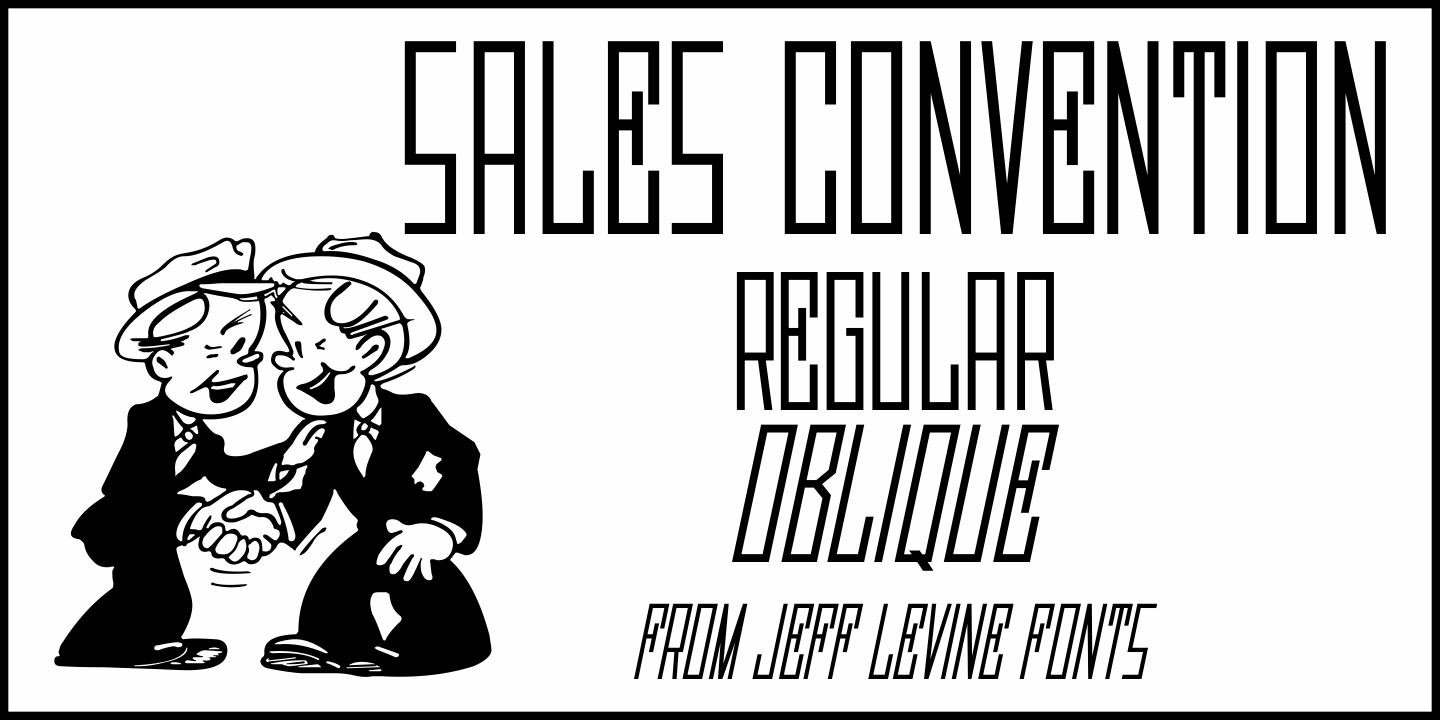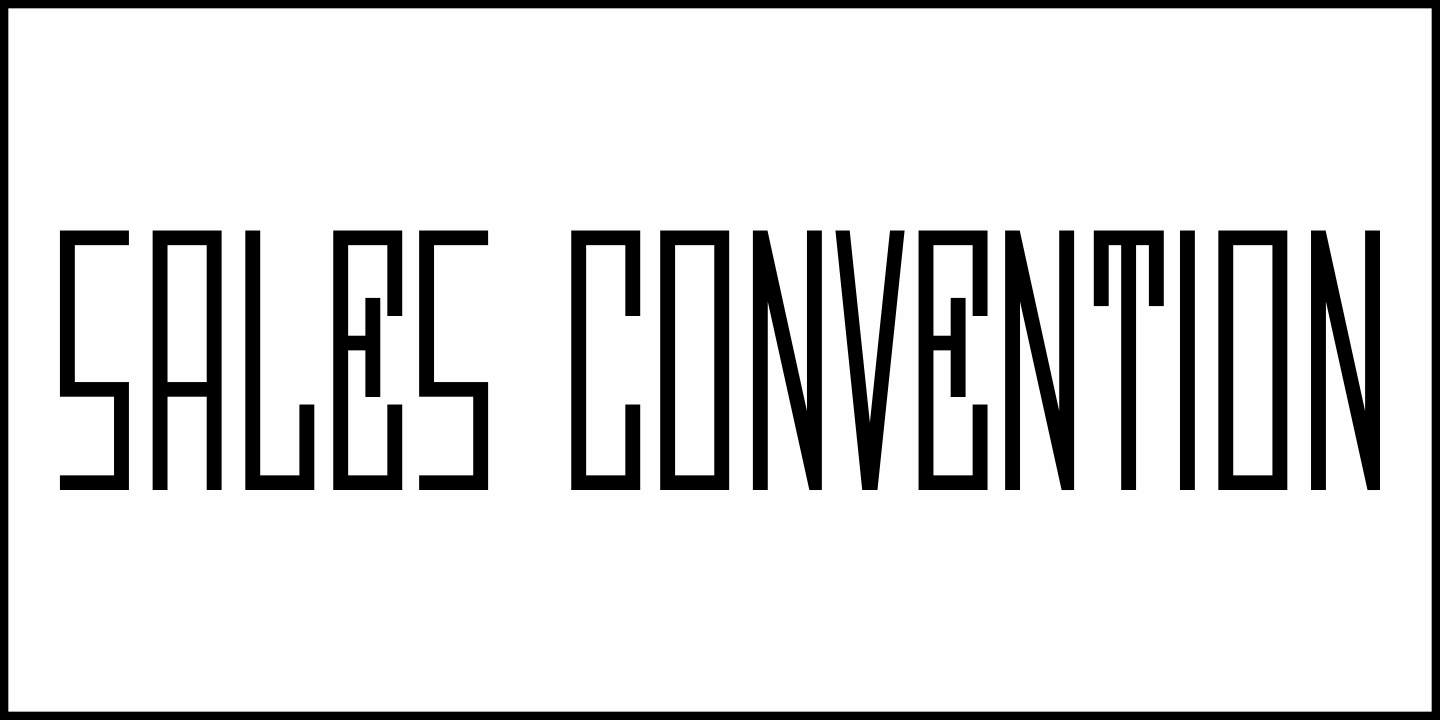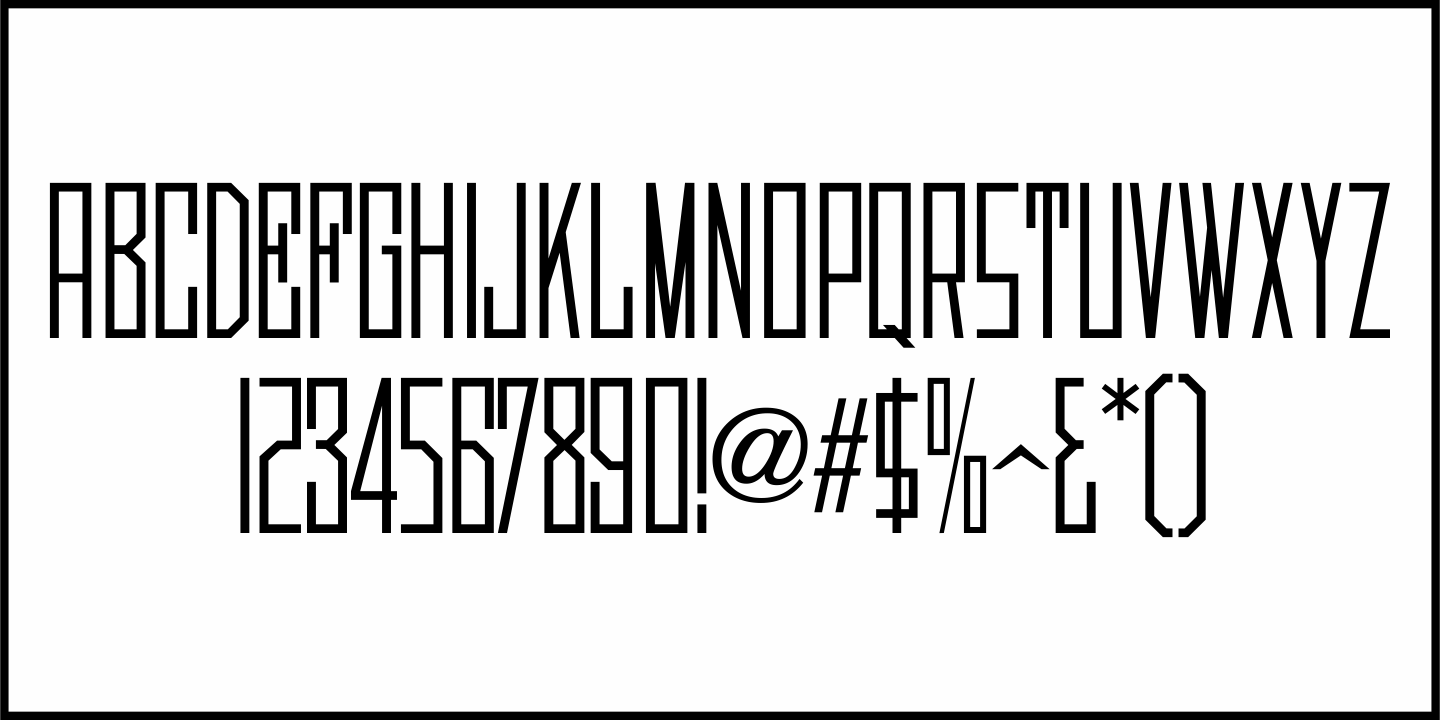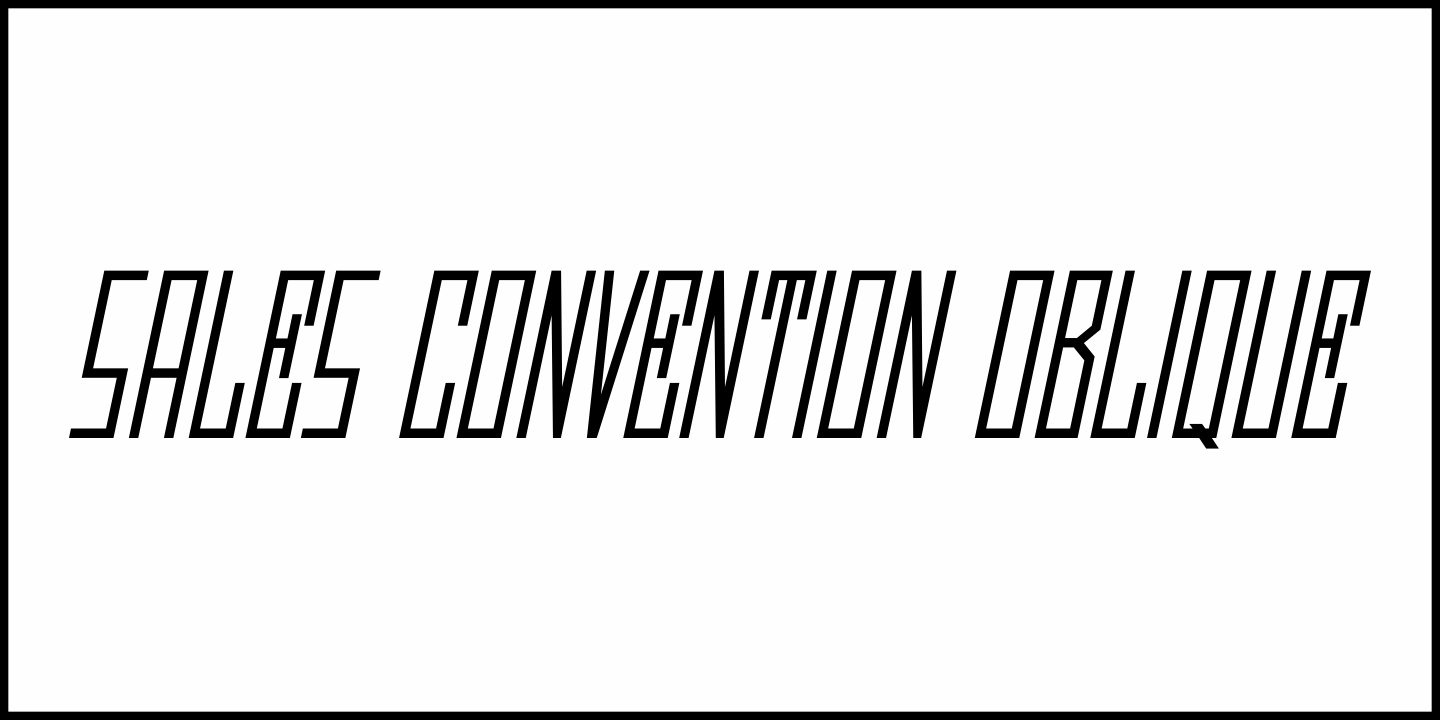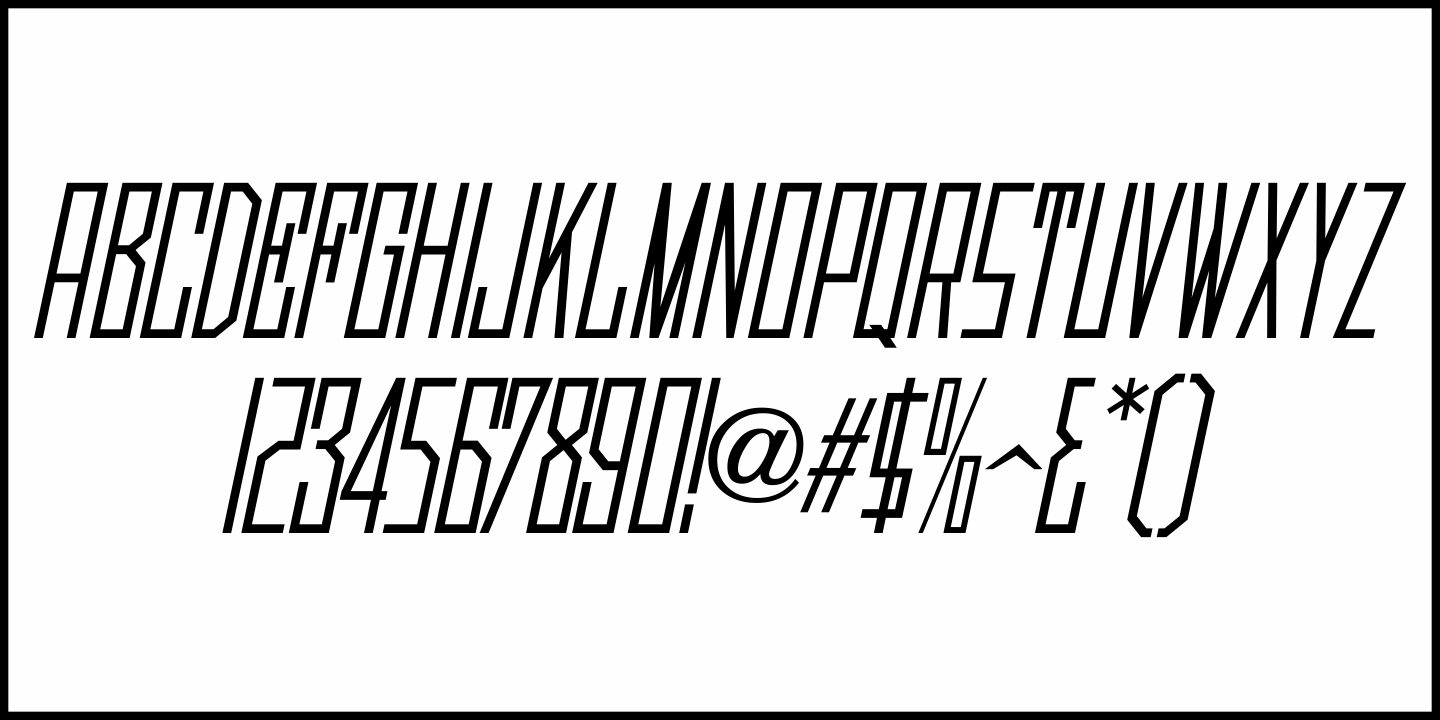
Sales Convention
In its heyday, the Starlight Room of the Waldorf-Astoria in New York City quite frequently printed lunch and dinner menus for not only their rotating bill of fare, but also for special events held there.
The 1937 Electrolux (Eastern) Appreciation Banquet has its own menu cover, and the lettering was in a simple, yet Art-Deco influenced condensed block design with squared features.
This simple and quirky typeface has been digitally redrawn as Sales Convention JNL, and is available in both regular and oblique versions.
Sales Convention JNL Regular by Jeff Levine Fonts